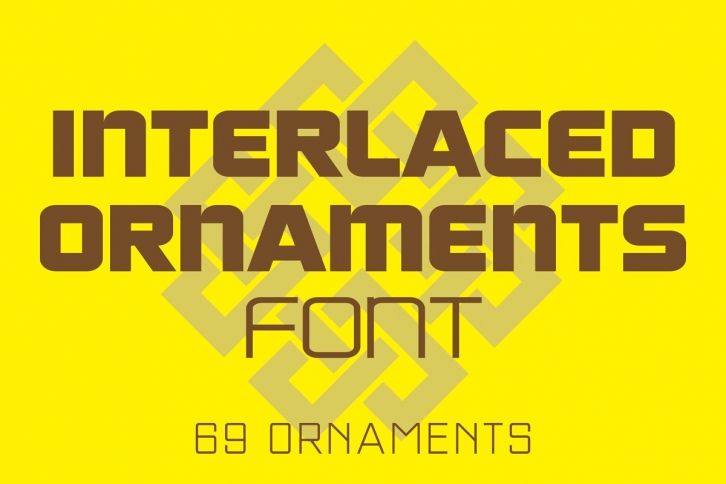
Interlaced Ornaments is composed of various geometric shapes appearing to be woven together. There is an assortment of 69 ornaments located under the character set and shift + character set keys.